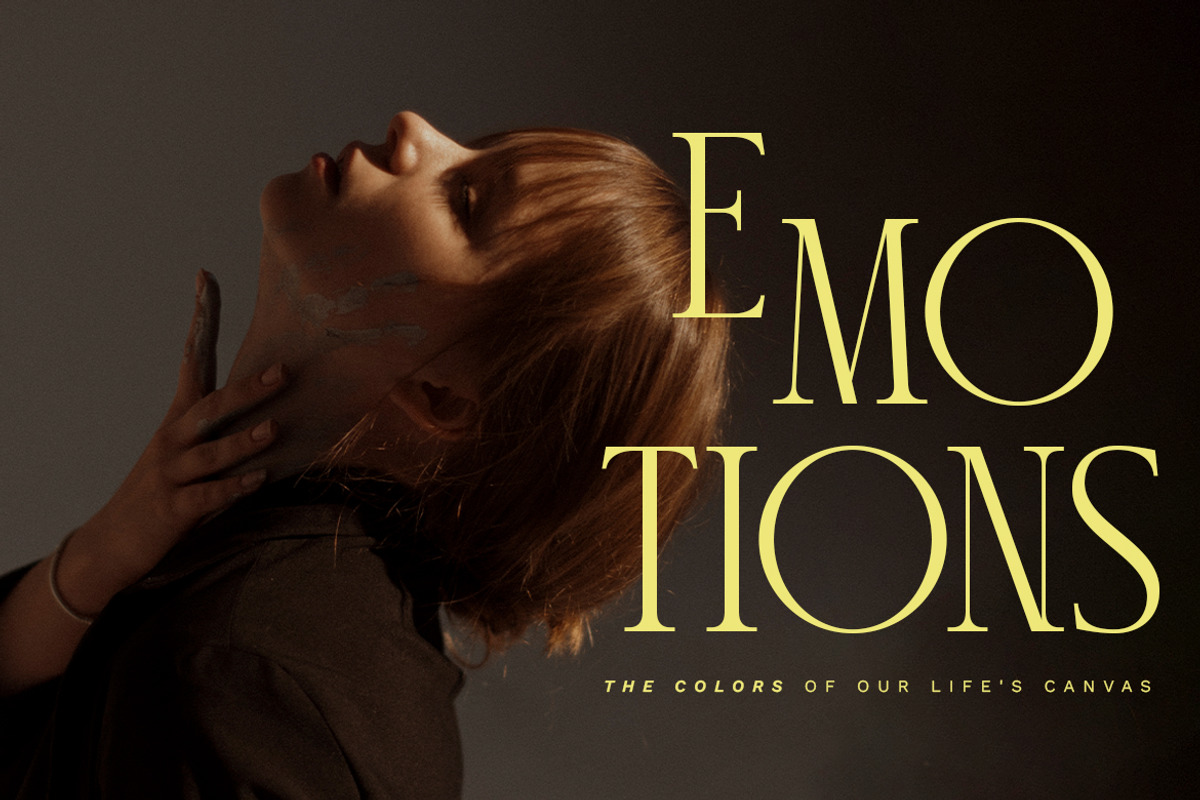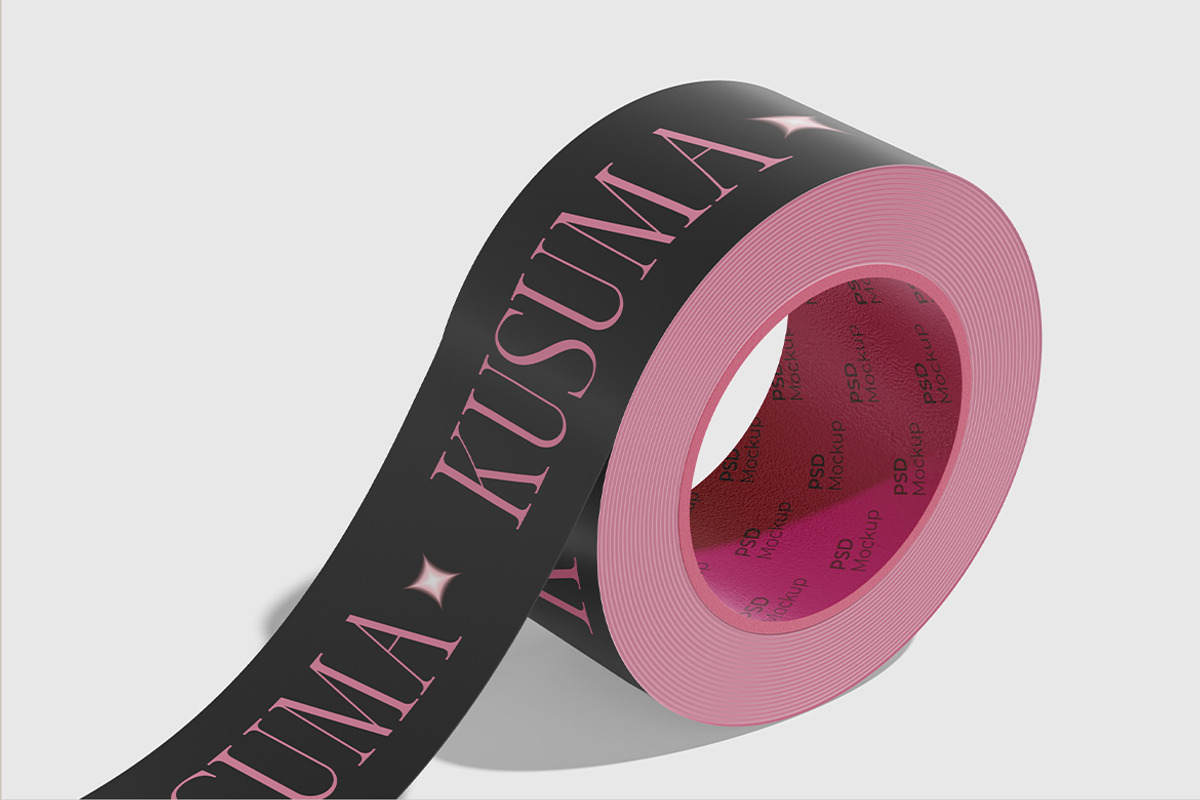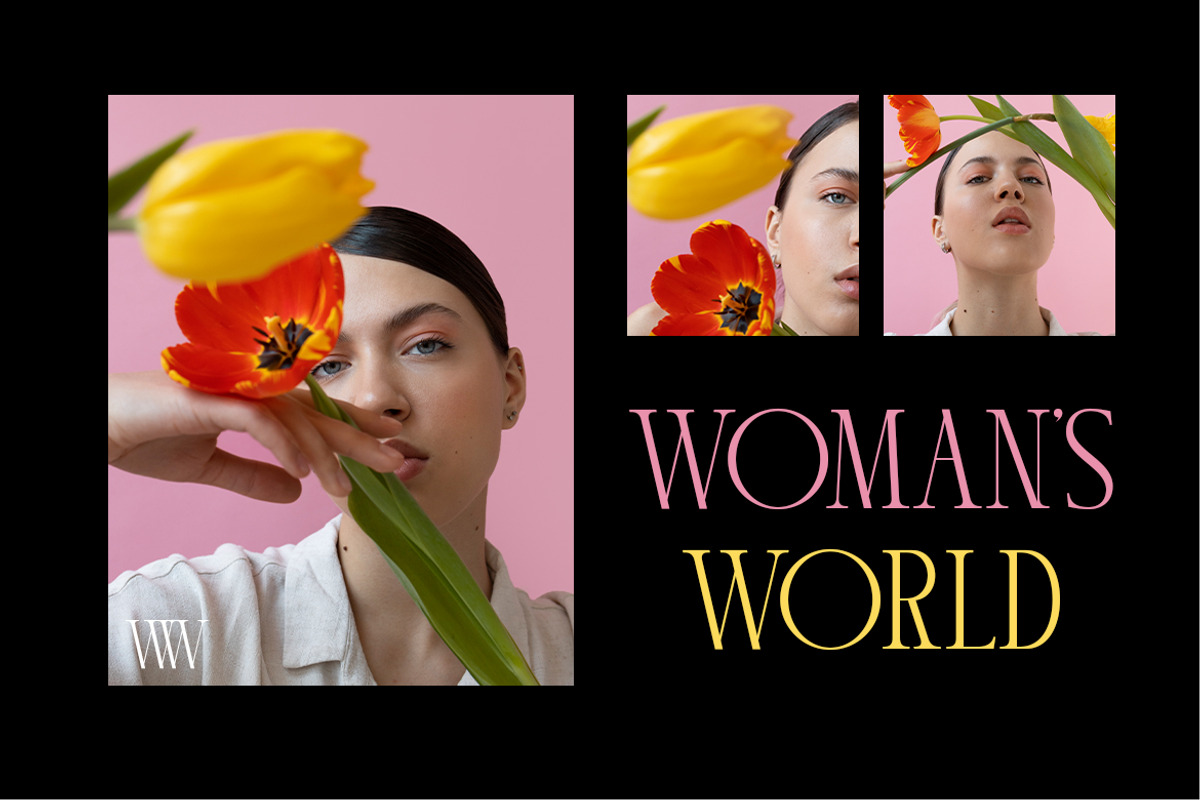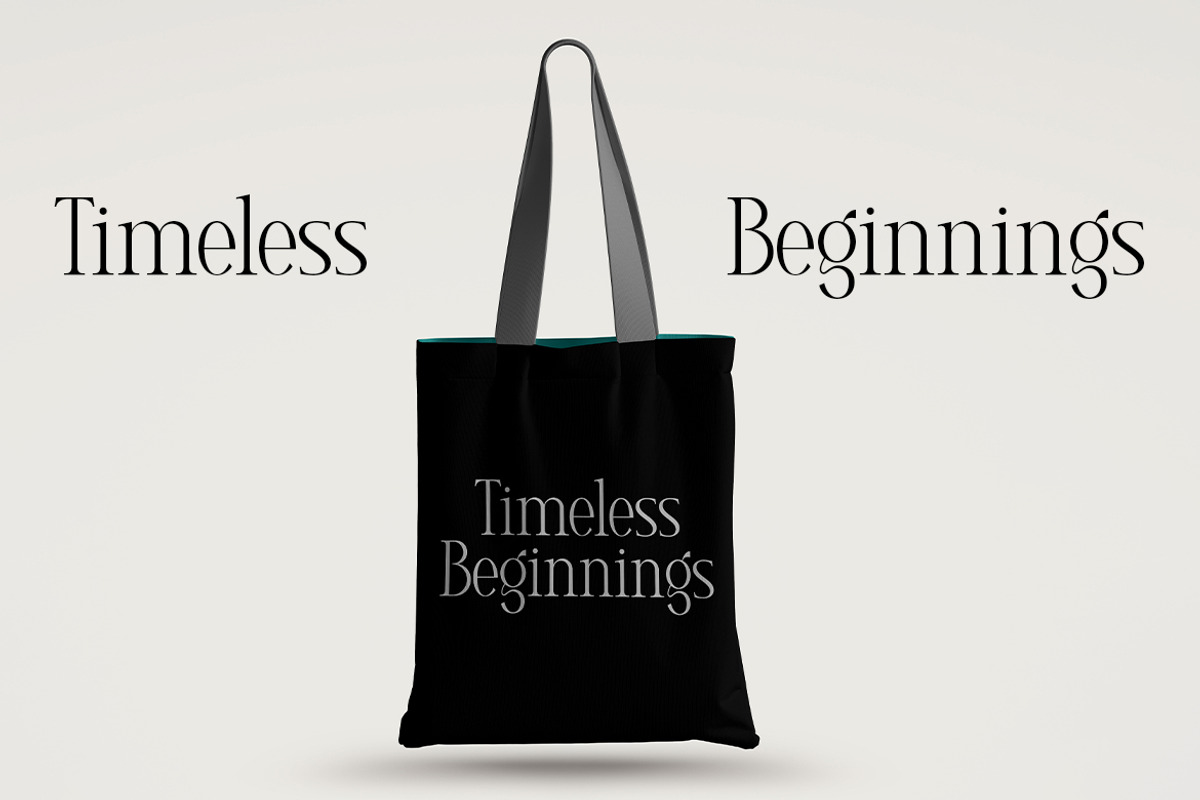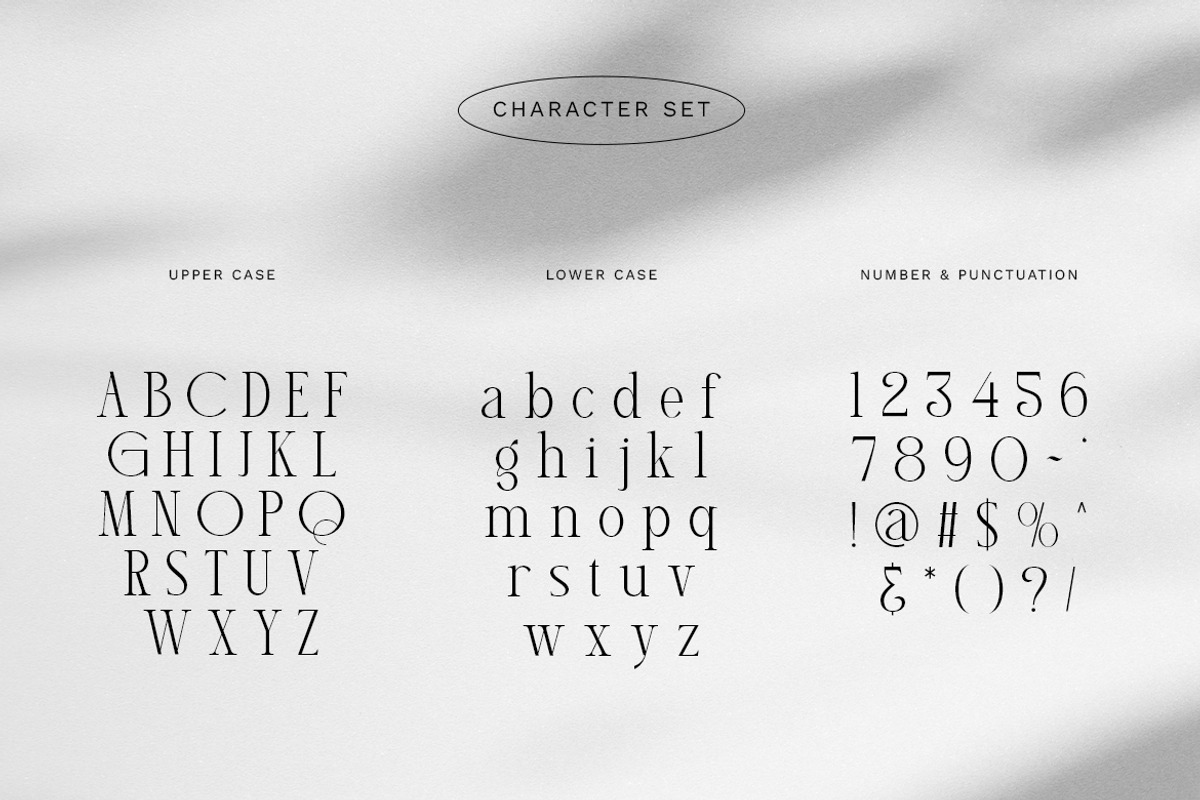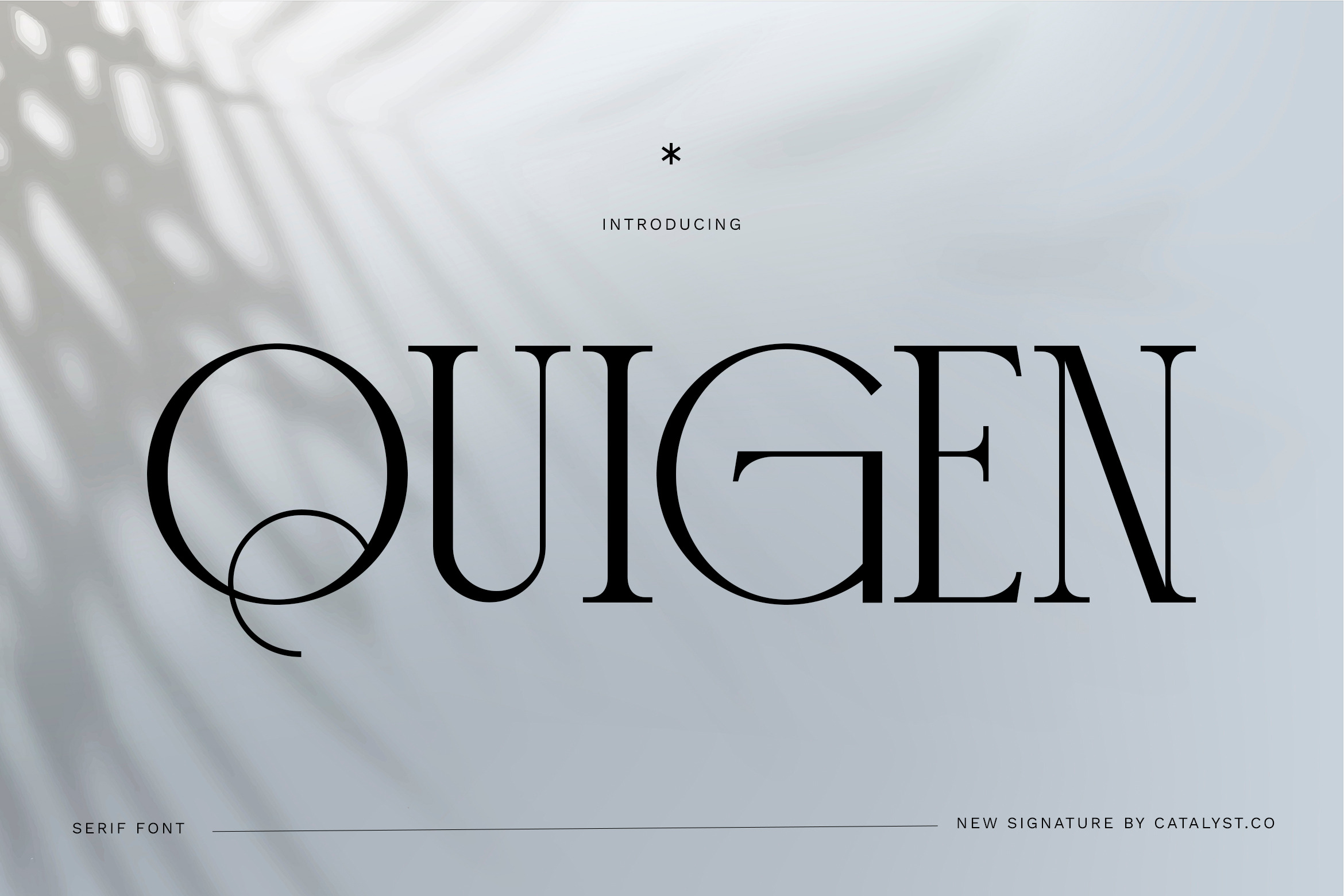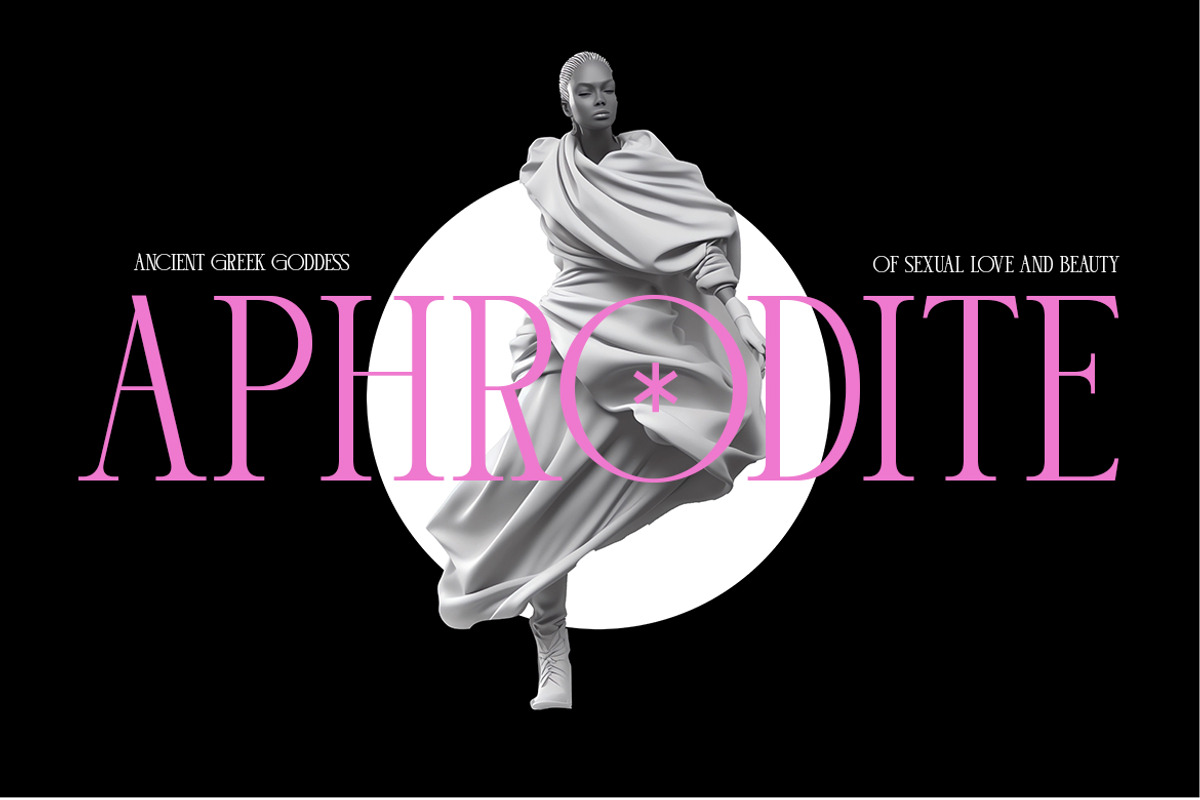
Quigen Serif Font
Quigen Serif Font typeface excellent used for the manufacture quote text, logotype, header magazine, and many more.
Main Features
- Numeral & Punctuations